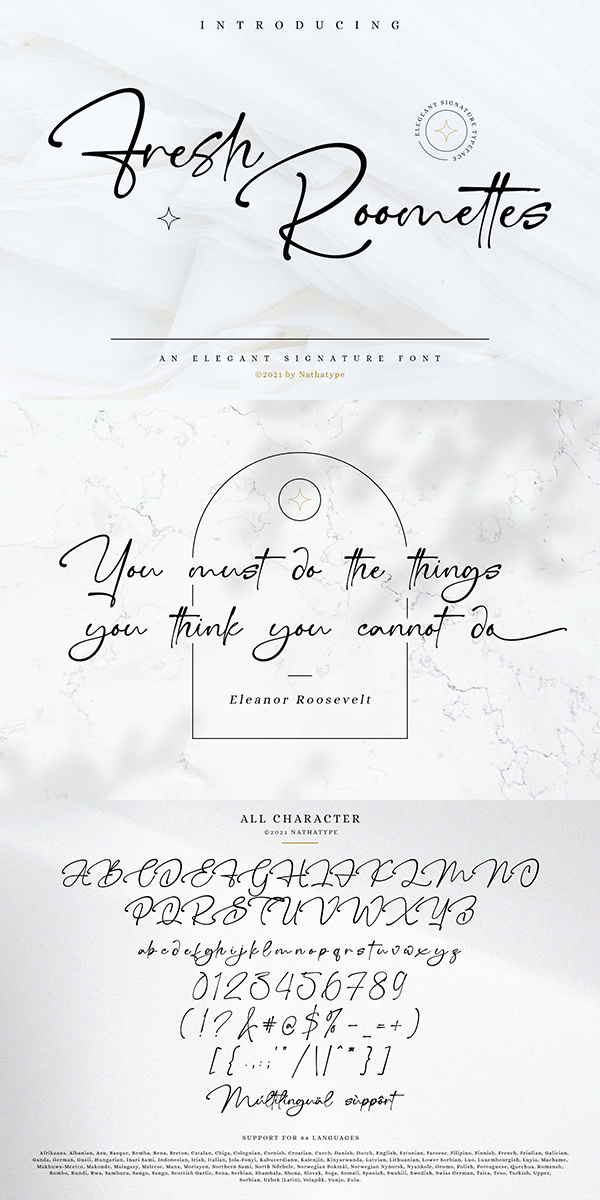
Fresh Roomettes Font
About Fresh Roomettes
Fresh Roomettes is an elegant signature font. Every swash, stroke, and curve is created to entice happiness and elegance. It is a great choice for your logo, book cover, poster, t-shirt, branding, and advertisement needs.